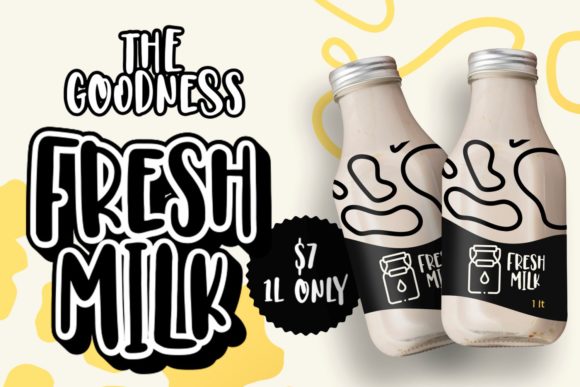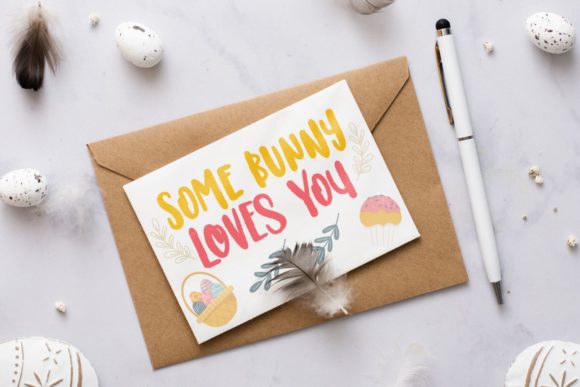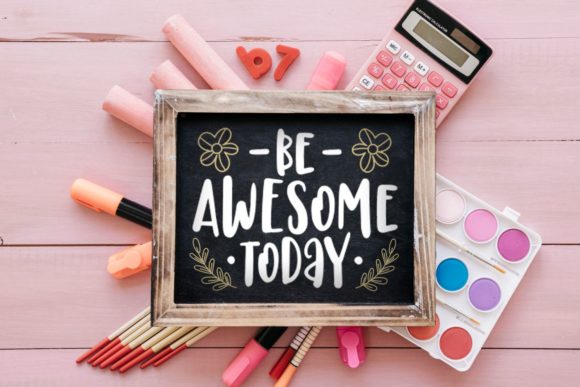
Easter Blessings Font: Add a Joyful Touch to Your Designs
Are you looking for a font that can bring a burst of joy and playfulness to your designs? Look no further than the Easter Blessings Font! This cute and quirky display font is perfect for adding a touch of whimsy to your creative projects. In this article, we’ll take a closer look at the Easter Blessings Font and explore how it can elevate your designs.
What is Easter Blessings Font?
Easter Blessings Font is a display font designed to add a joyful touch to your designs. Its cute and quirky style makes it perfect for Easter-themed projects, but it’s versatile enough to be used in a variety of creative endeavors. The font’s playful and carefree vibe is sure to make your designs stand out and leave a lasting impression.
Characteristics of Easter Blessings Font
So, what makes Easter Blessings Font so special? Here are a few of its key characteristics:
- Cute and Quirky: Easter Blessings Font has a playful and whimsical style that’s sure to bring a smile to your face.
- Display Font: This font is designed to make a statement, making it perfect for headlines, titles, and other display text.
- Joyful Touch: The font’s carefree and playful vibe adds a joyful touch to your designs, making them more engaging and fun.
How to Use Easter Blessings Font
Now that we’ve covered the basics of Easter Blessings Font, let’s talk about how to use it in your designs. Here are a few ideas to get you started:
- Easter-themed Projects: Use Easter Blessings Font to create festive Easter-themed designs, such as greeting cards, invitations, and social media graphics.
- Crafting Projects: Add a playful touch to your crafting projects, such as scrapbooking, paper crafting, and DIY decor.
- Digital Designs: Use Easter Blessings Font in your digital designs, such as blog posts, social media graphics, and email newsletters.
Benefits of Using Easter Blessings Font
So, why should you choose Easter Blessings Font for your designs? Here are a few benefits:
- Unique Style: Easter Blessings Font has a unique and playful style that will set your designs apart from the crowd.
- Easier to Read: The font’s clear and playful design makes it easy to read, even at smaller sizes.
- Versatile: Easter Blessings Font can be used in a variety of creative projects, from Easter-themed designs to digital graphics.
Tips for Using Easter Blessings Font
Here are a few tips for getting the most out of Easter Blessings Font:
- Use it Sparingly: Because Easter Blessings Font is a display font, it’s best to use it sparingly to make a bigger impact.
- Pair it with Other Fonts: Experiment with pairing Easter Blessings Font with other fonts to create a unique and visually appealing design.
In conclusion, Easter Blessings Font is a cute and quirky display font that’s perfect for adding a joyful touch to your designs. Its playful and carefree vibe makes it ideal for Easter-themed projects, but it’s versatile enough to be used in a variety of creative endeavors. With its unique style, ease of use, and versatility, Easter Blessings Font is a great addition to any designer’s toolkit.